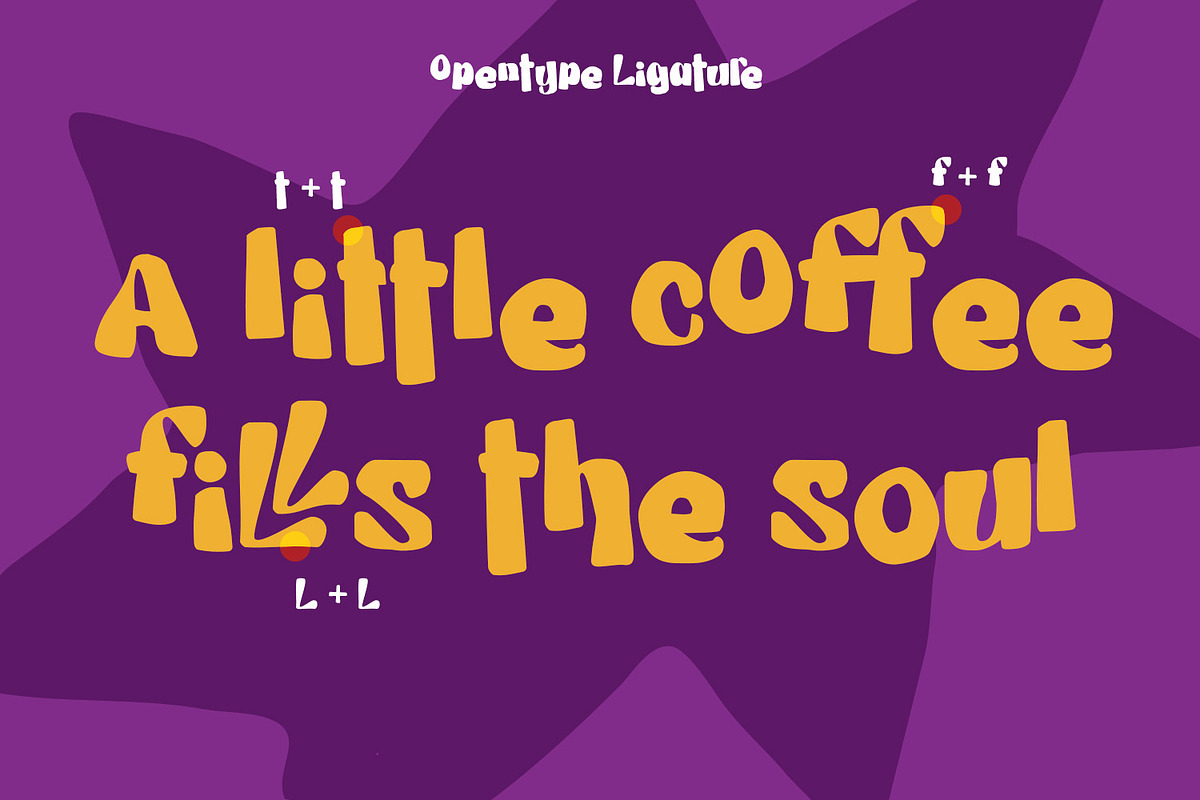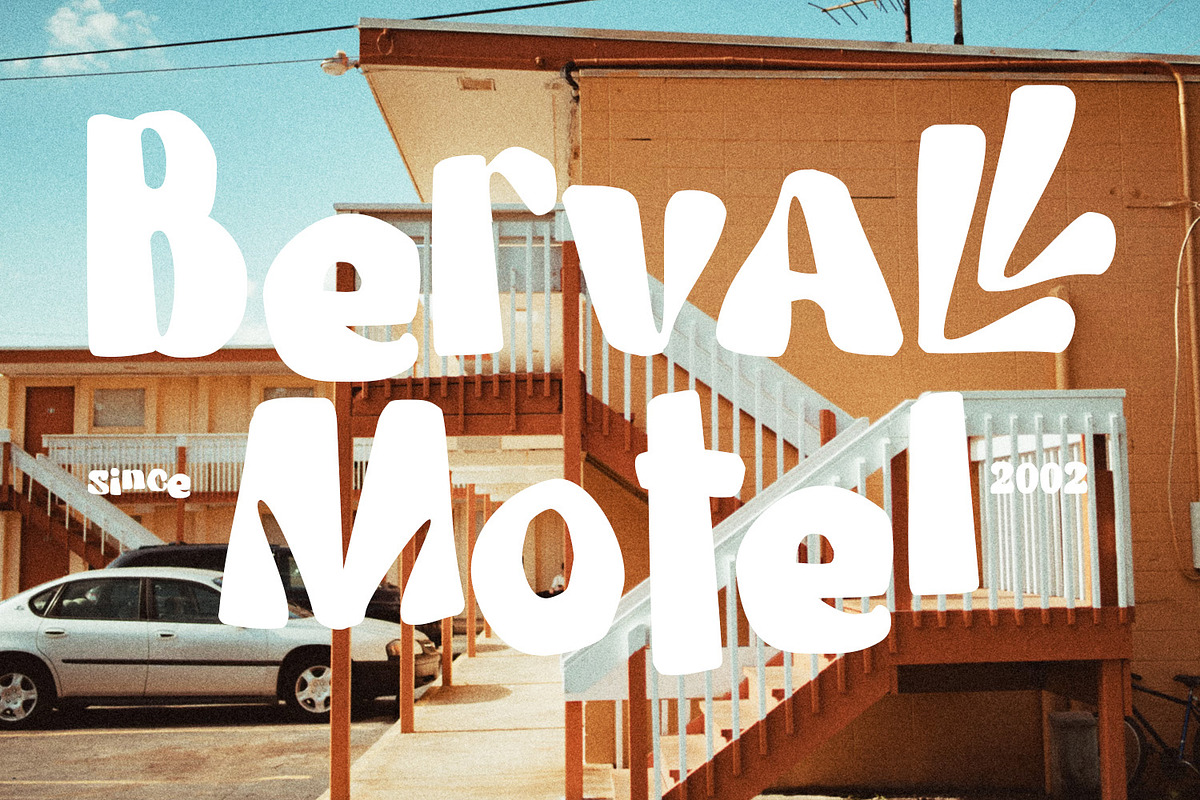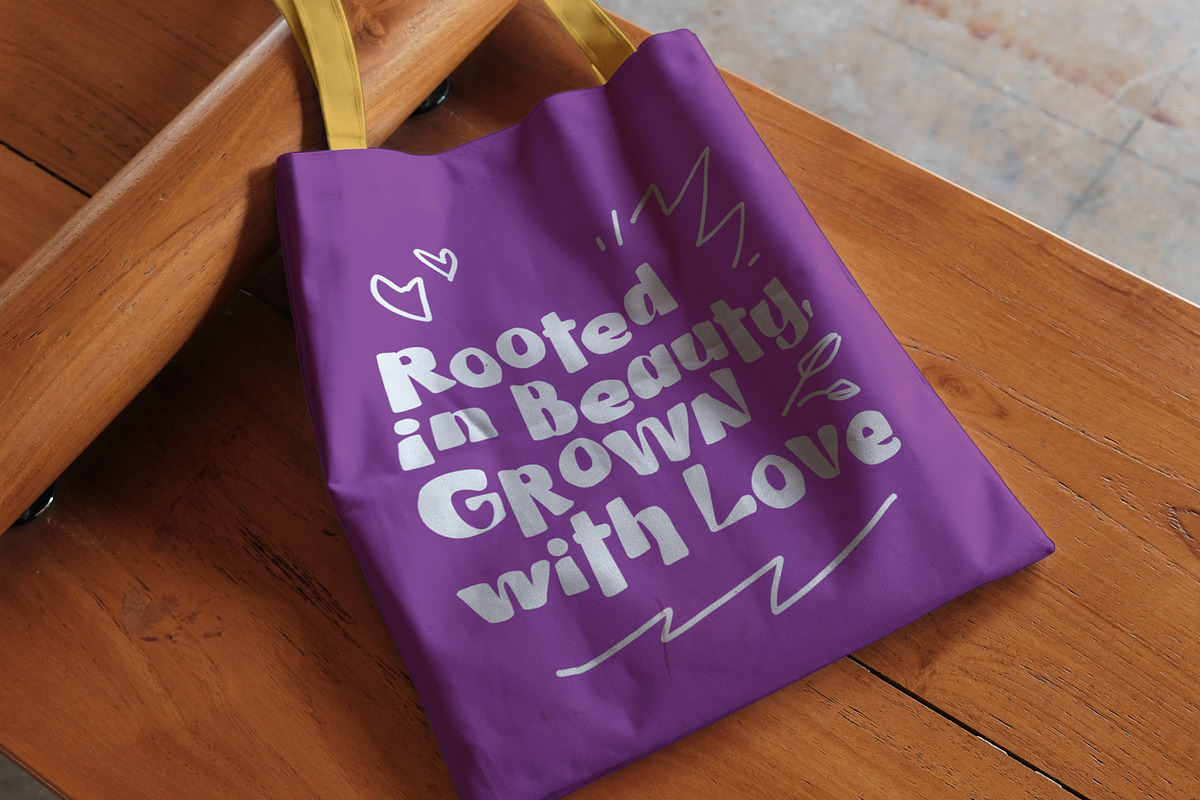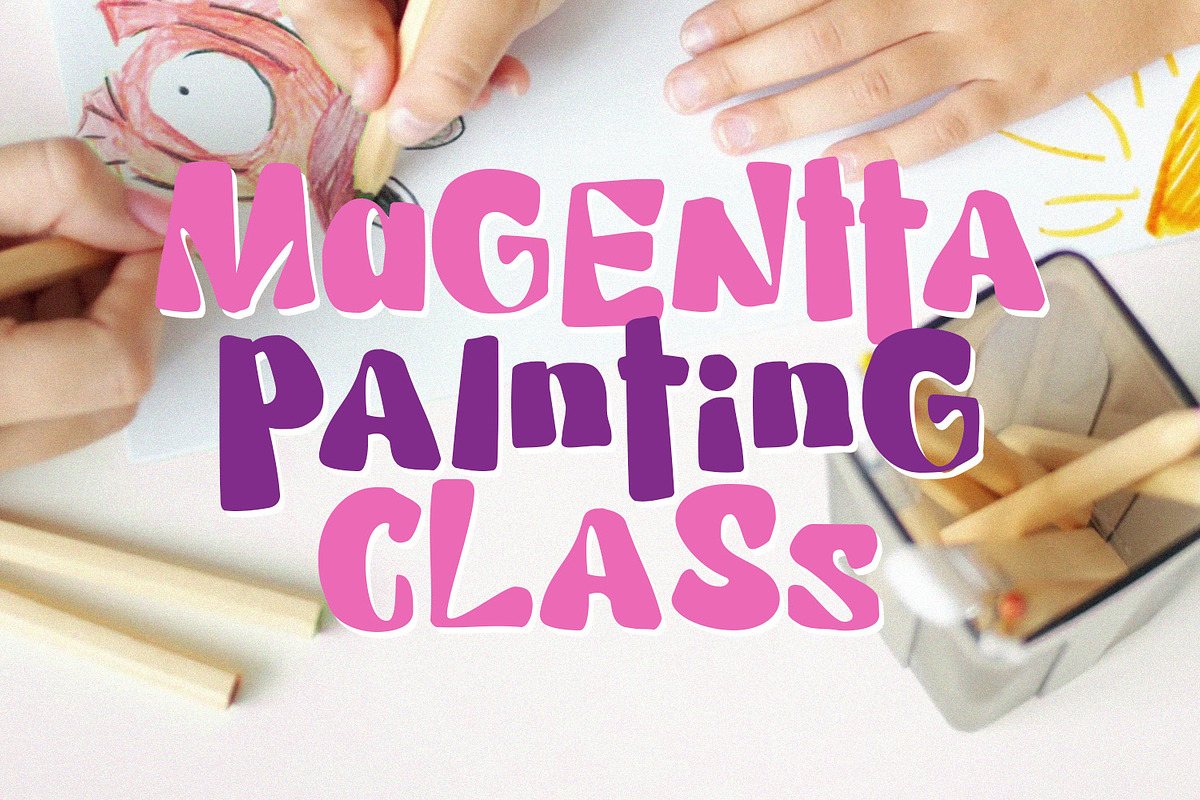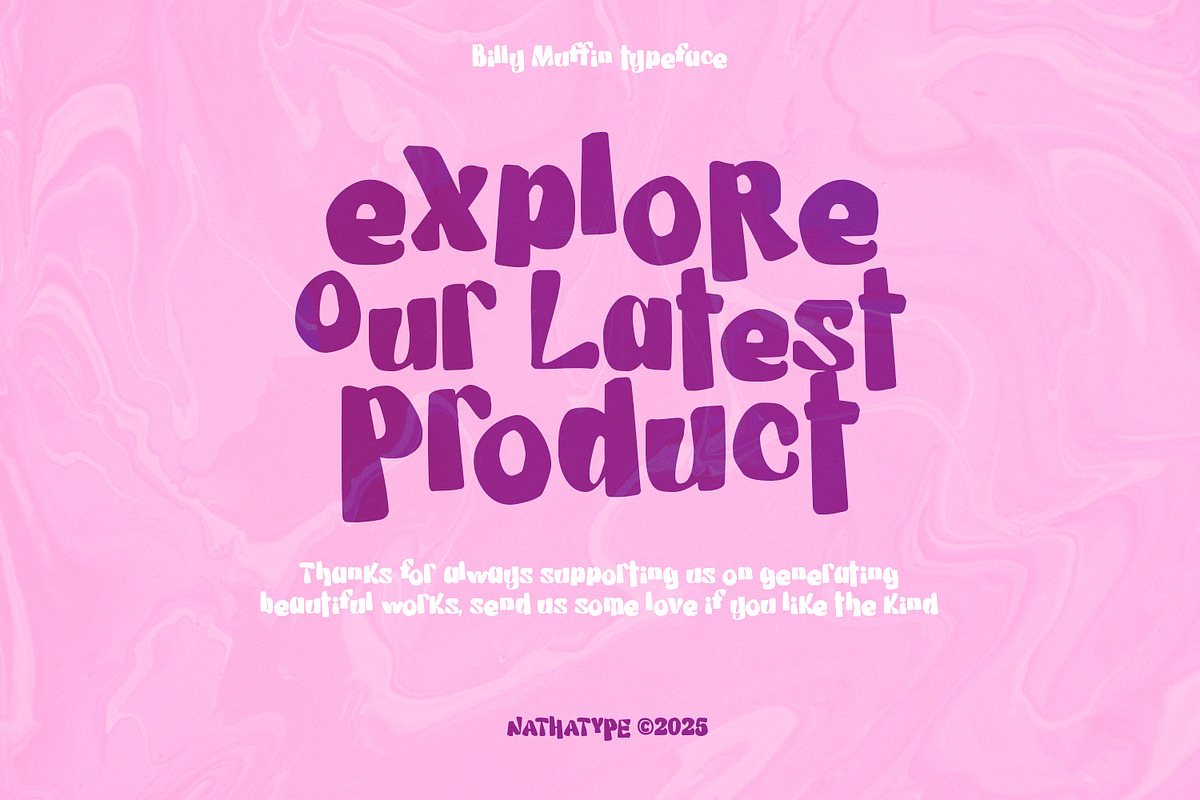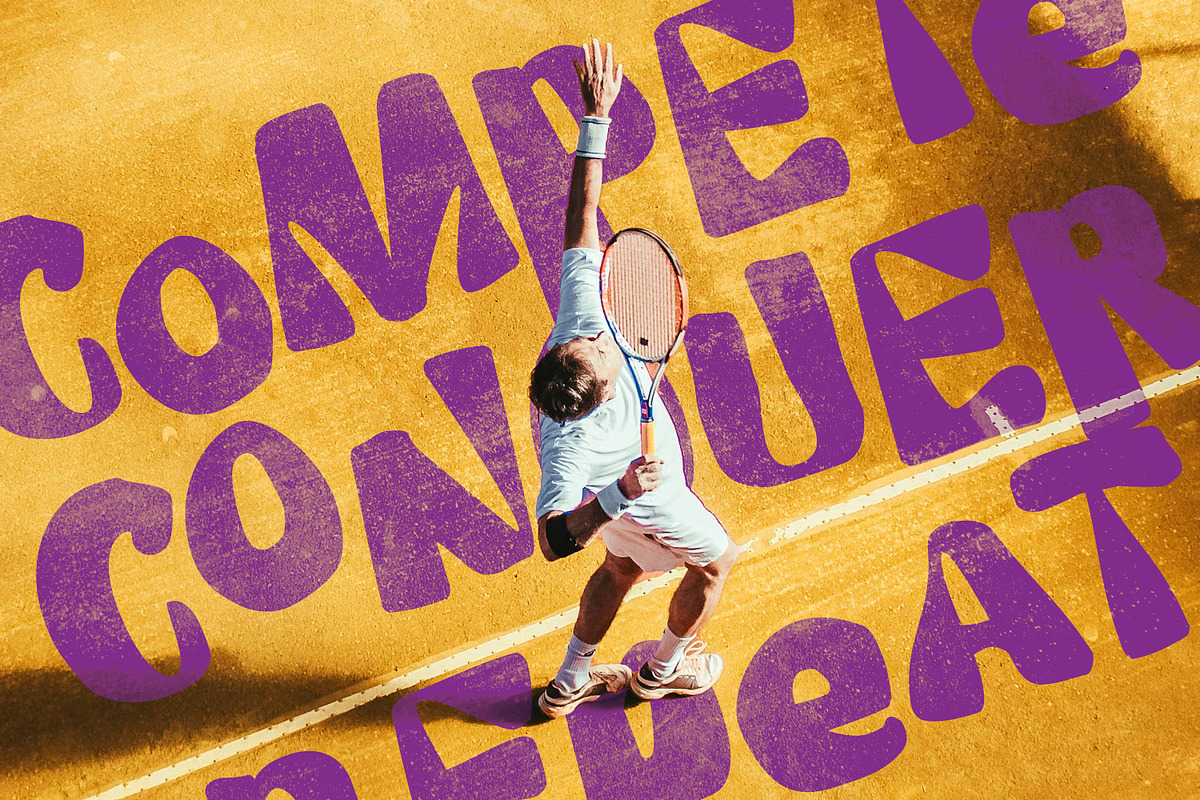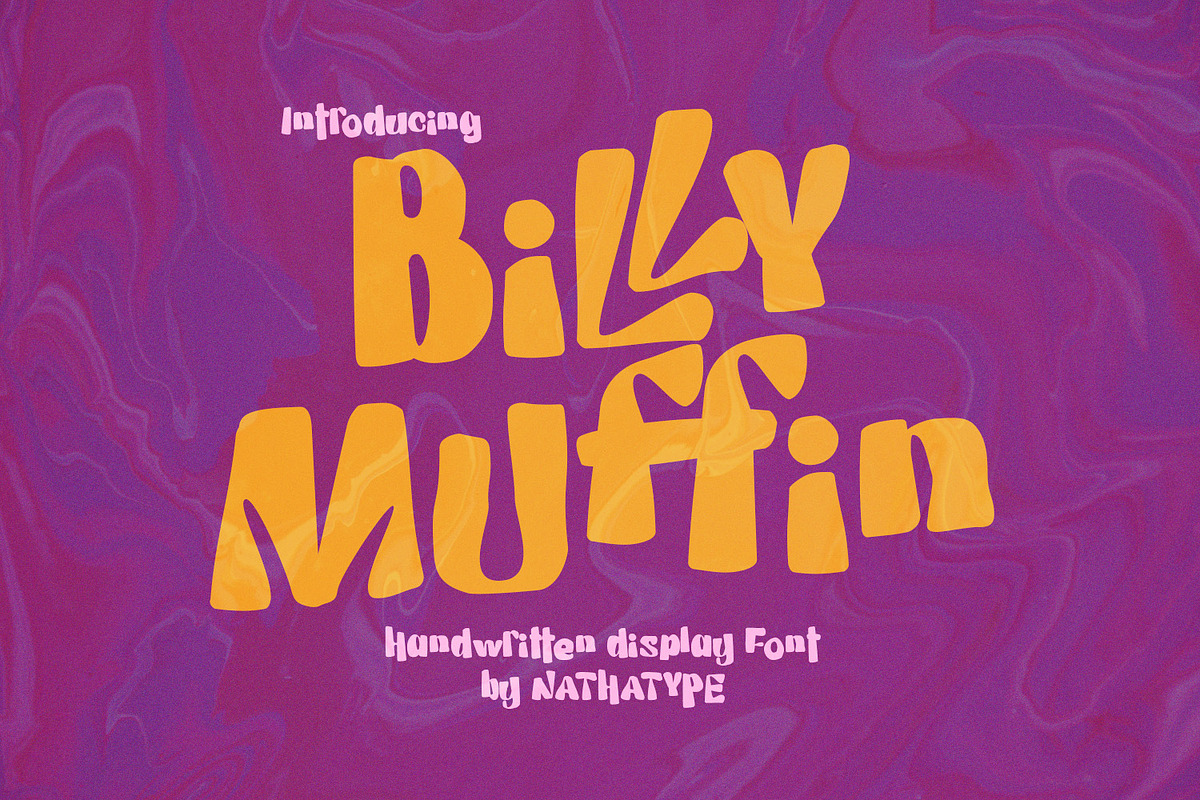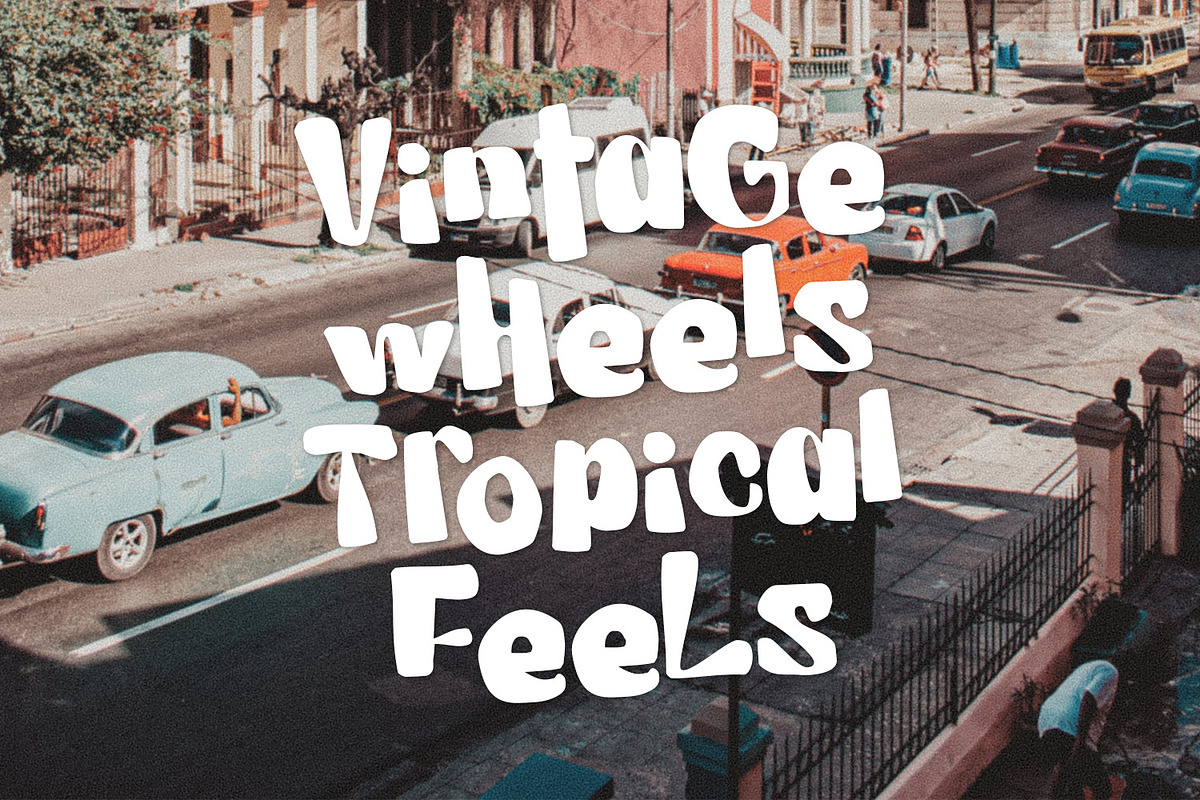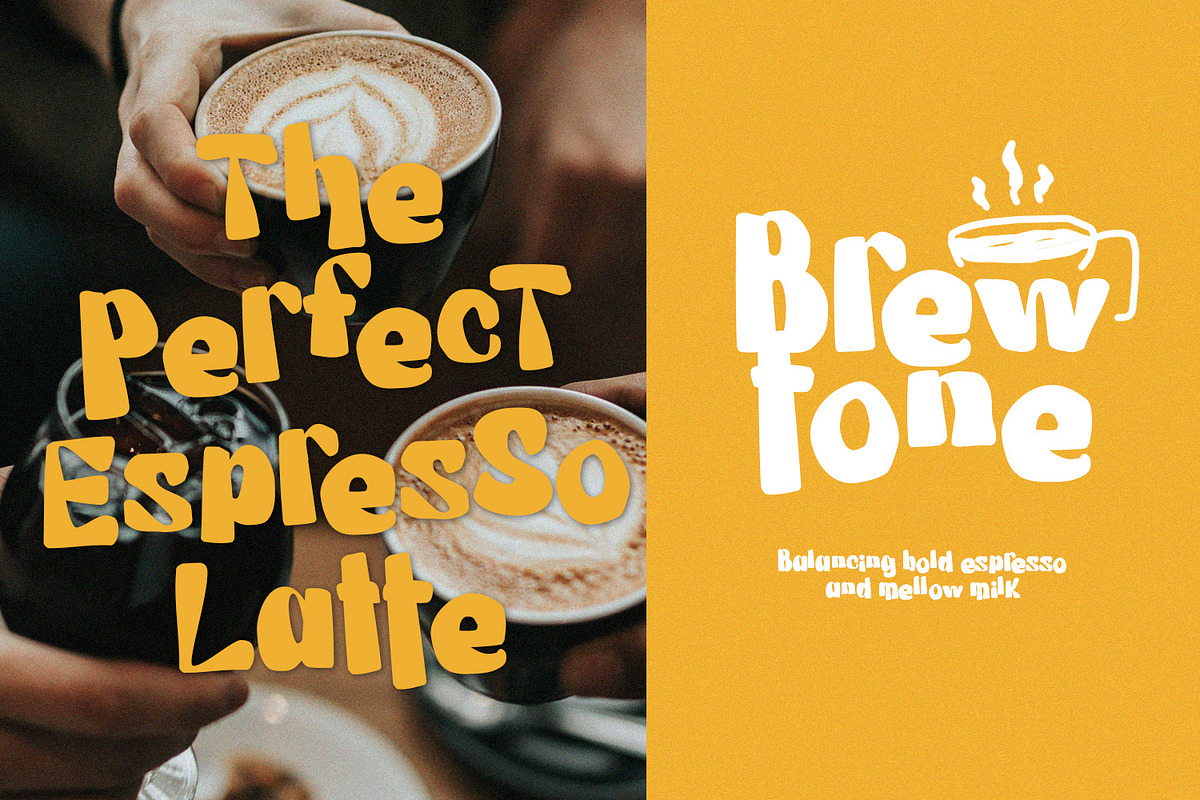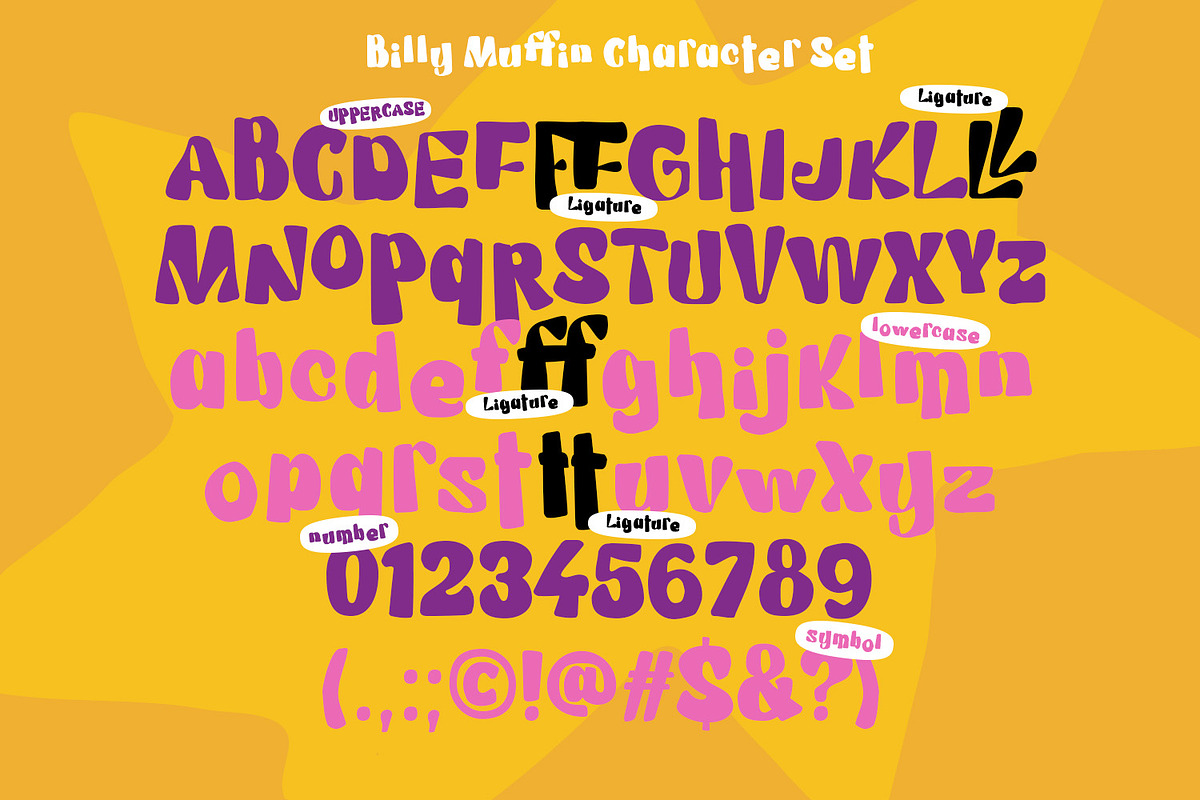
Billy Muffin
Billy Muffin is a bold handwritten display font that captures the fun, imperfect charm of real handwriting. Designed with rounded letter shapes and irregular outlines, this font brings a warm, playful, and organic feel to your designs. Its bold weight ensures strong visibility, while the uneven strokes and quirky forms give it a natural, handcrafted personality that stands out in any creative project. In addition, enjoy the features here.
Billy Muffin fits in branding, quotes, name cards, apparels, logos, posters, and many more designs. Find out more ways to use this font by taking a look at the font preview.